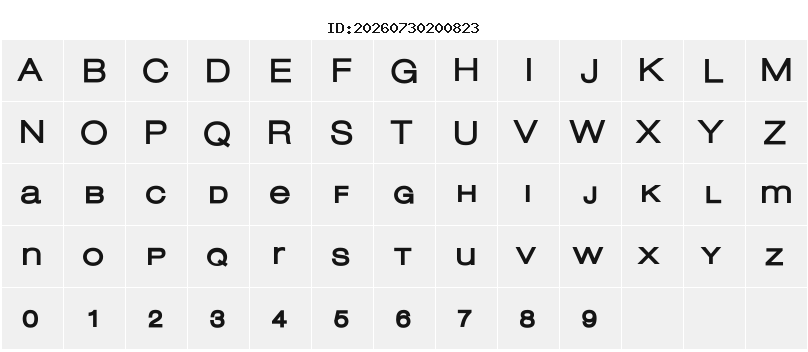
• Font Name: Lowvetica
• Full Font Name: Lowvetica Ultra Bold
• Copyright: Inspired on the popular font HELVETICA by Max Miedinger with Eduard Hoffman, eliminating all highs and lows.
Lowvetica.ttf is a modern, elegant sans-serif font designed for ultimate readability and visual harmony. Perfect for branding, headlines, web design, and print materials.